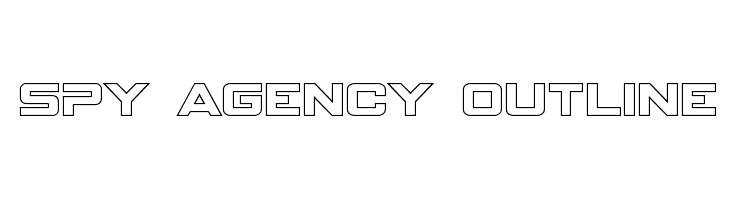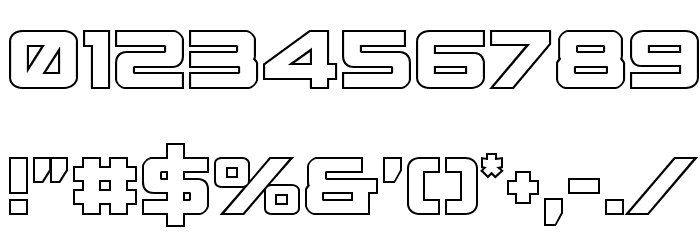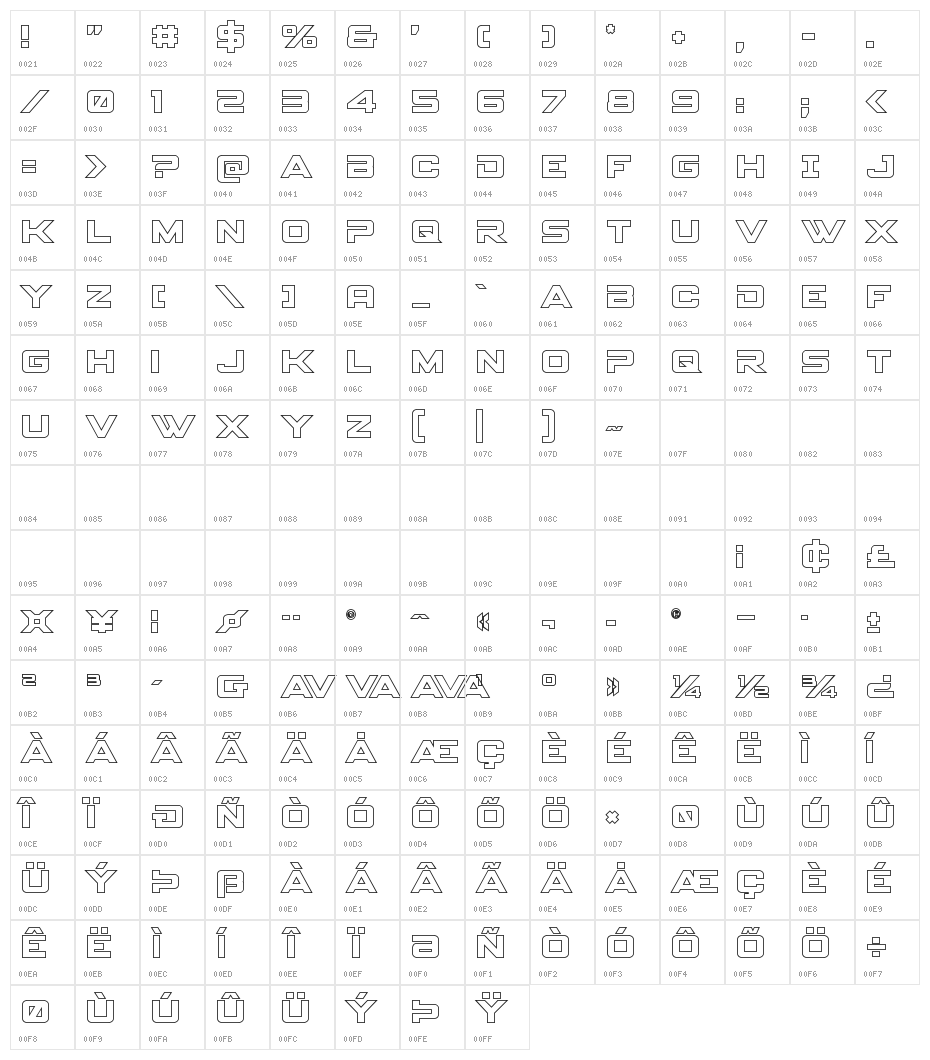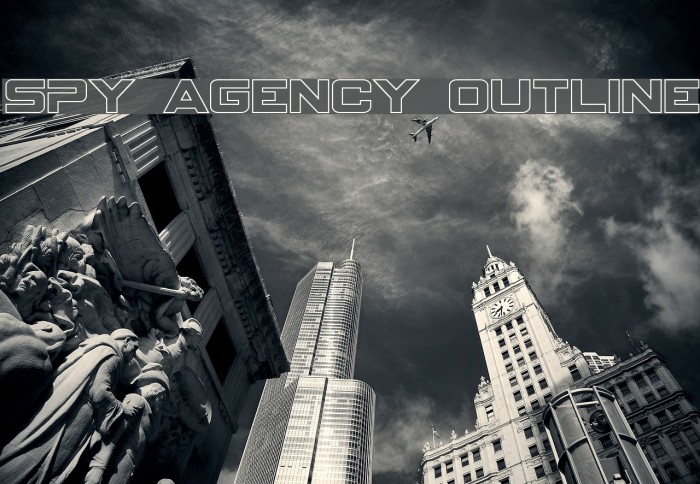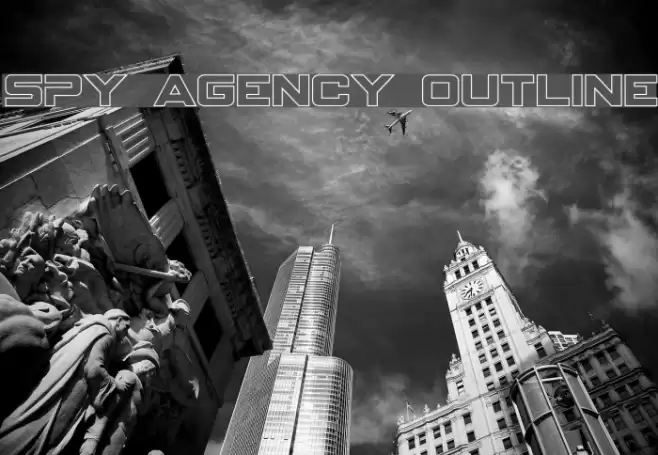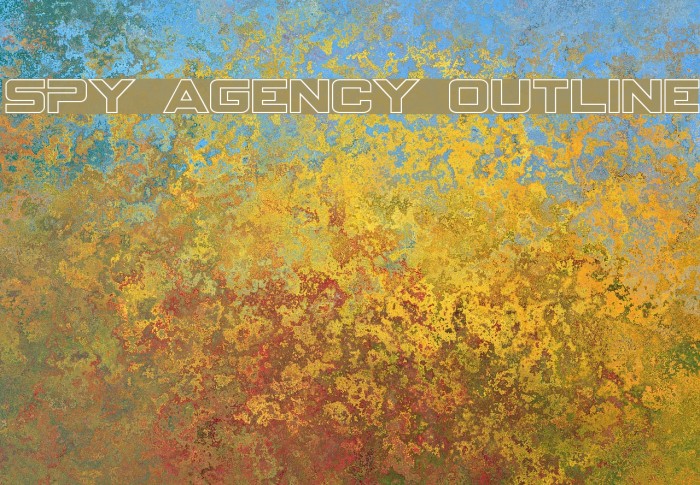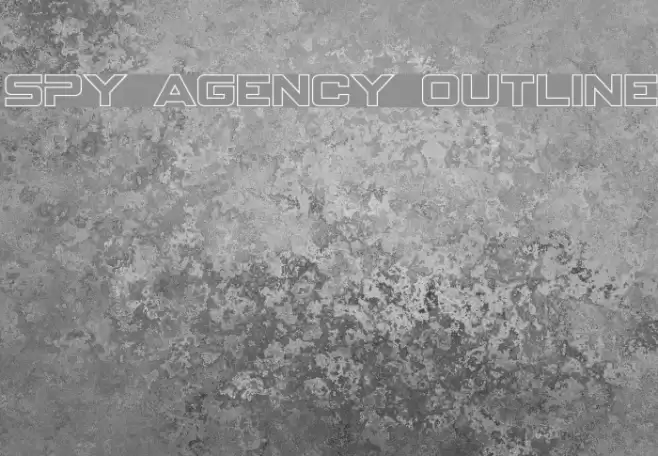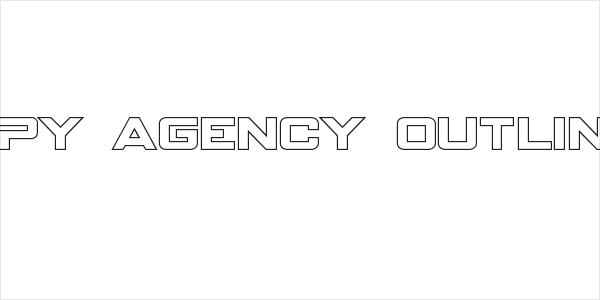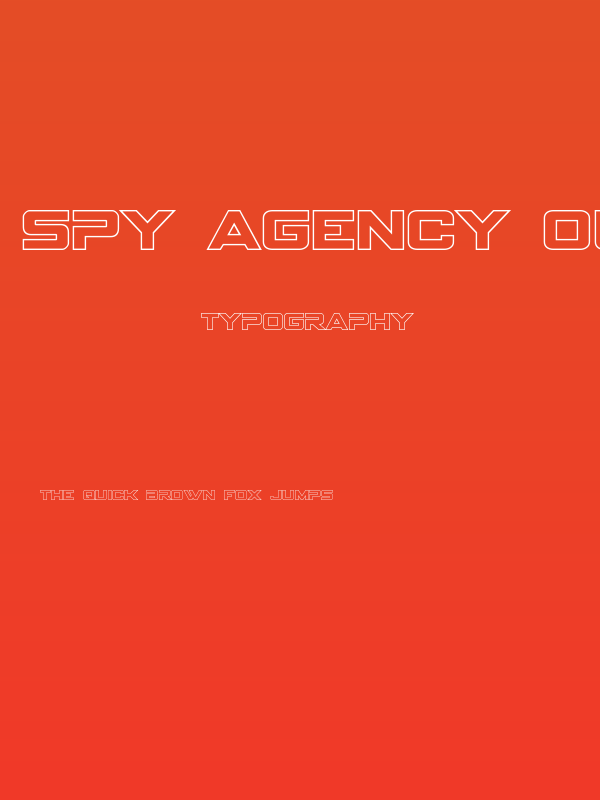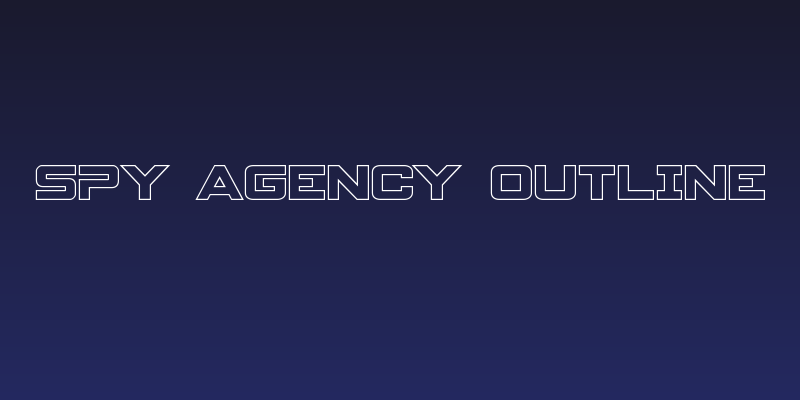
Spy Agency Outline Font
Spy Agency Outline Description
This font features a bold, geometric outline style that creates a strong visual impact. The characters are constructed with clean, angular lines, giving them a futuristic and technical appearance. The uppercase letters are uniform in height, with a consistent stroke width that enhances readability. The numbers and special characters maintain the same structural integrity, ensuring a cohesive look across all elements. The outline design adds a layer of depth, making it suitable for projects that require a modern and edgy aesthetic.
| Proposed Projects | Ideal for branding, posters, video game graphics, and sci-fi themed projects. |